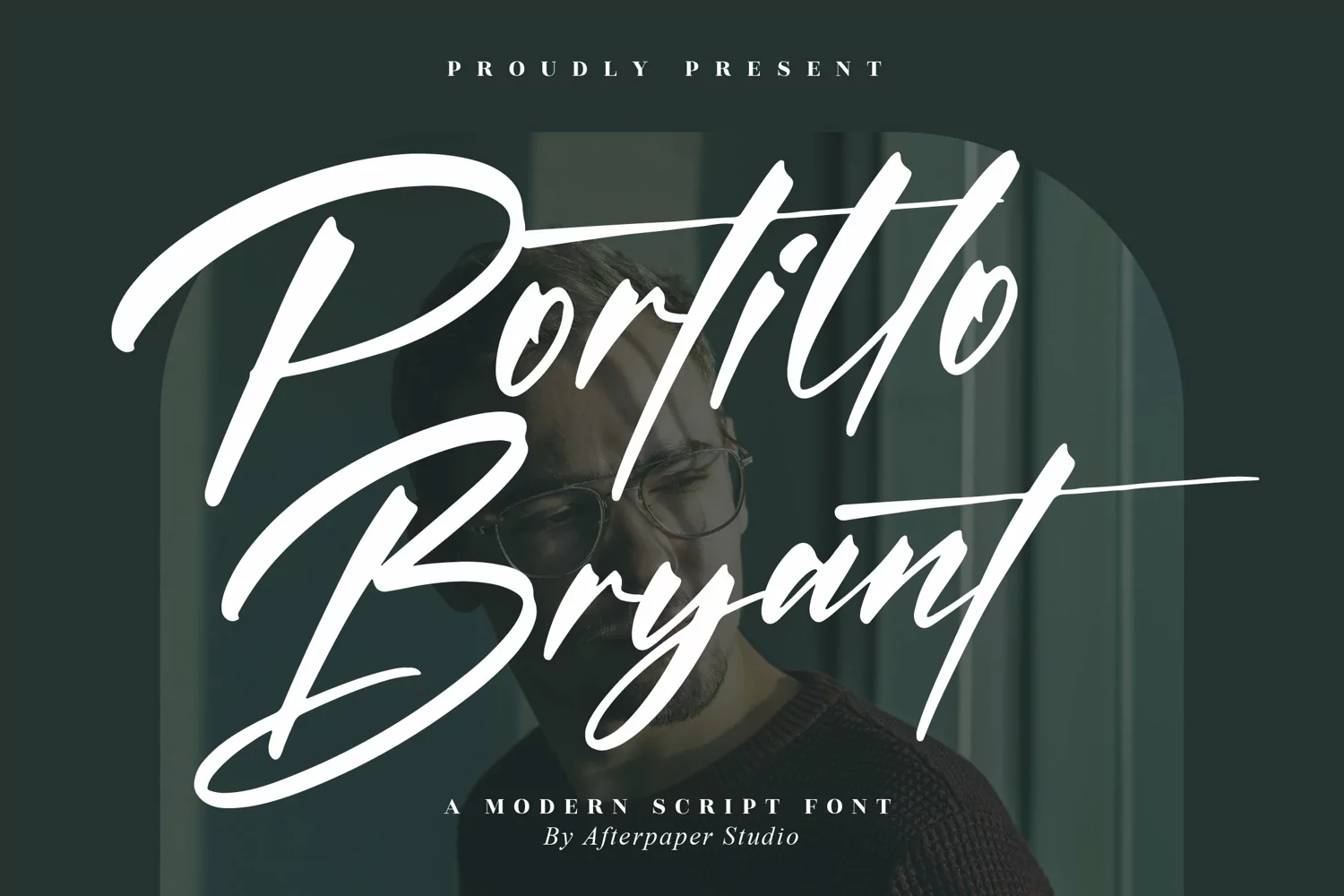
Portillo Bryant - Modern Script Font
Portillo Bryant
Portillo Bryant Italic
Portillo Bryant – Modern Script Font, from Afterpaper Studio, is a beautiful script font, suitable for any projects such as: logos, branding projects, homeware designs, product packaging, mugs, quotes, posters, shopping bags, t-shirts, book covers, name card, invitation cards, greeting cards, label, photography, watermark, special events, and all your other lovely projects that need a beautiful script taste.
• Alternate and Ligature